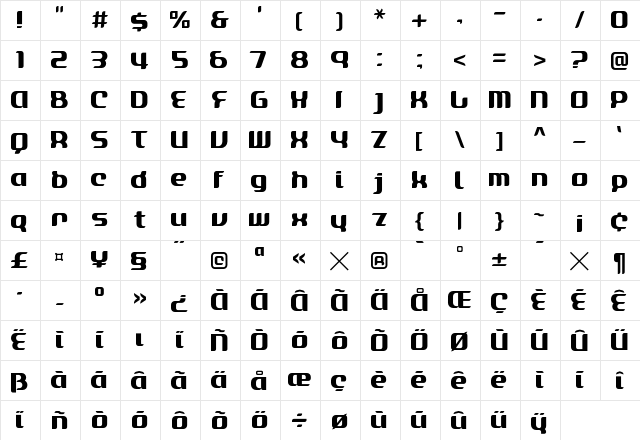
ACRYLIC2081 ALP30
Design Context for ACRYLIC2081 Typeface
ACRYLIC2081 offers clean, dependable letterforms without strong stylistic allegiance, making it a practical choice for designers who need flexibility.
Pro Tip: Use ACRYLIC2081 in both headline and body roles to test its range before committing to a single application.